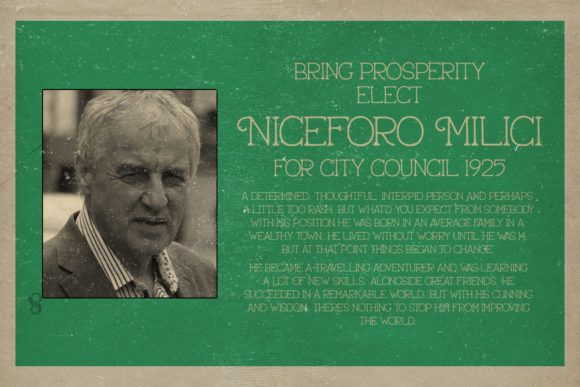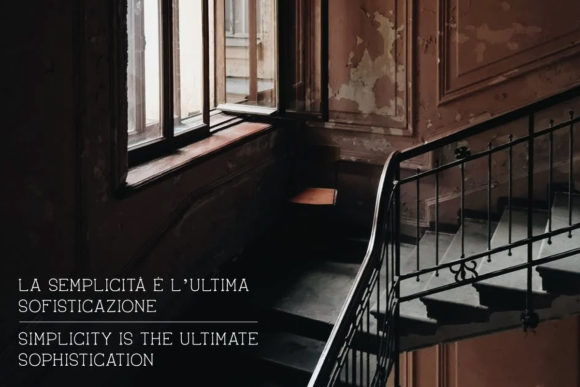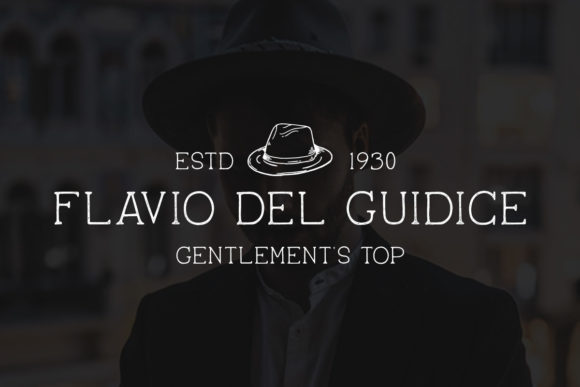
Introduction to Pantaleone Font
Pantaleone is a simple display font, featuring a vintage vibe.
It is suitable for any branding, product packaging, invitation, quote, t-shirt, label, poster, logo that you wish to develop .